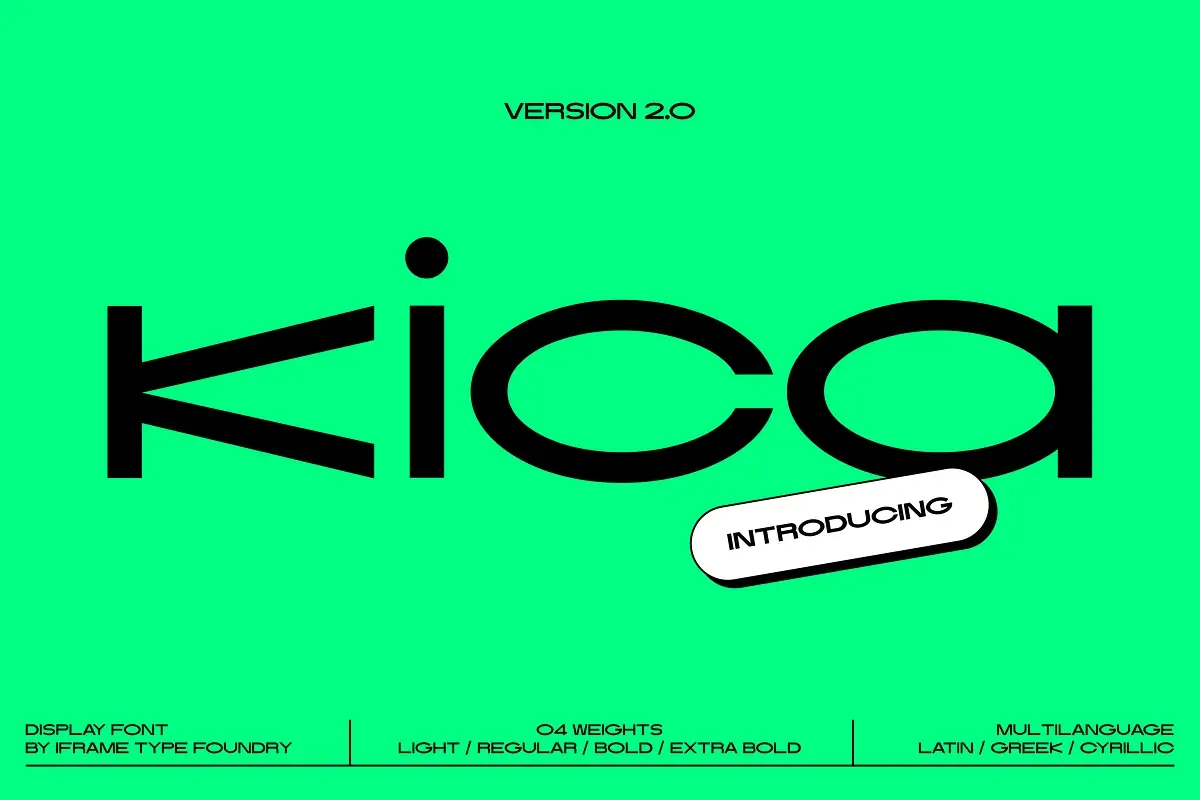
Kica Extended Font Family Free Download is a sleek and contemporary typeface collection known for its wide letterforms and modern geometric style. Perfect for impactful headlines, digital interfaces, branding, editorial layouts, and posters, this font family brings bold structure and a strong visual presence to your designs. With multiple weights and clean lines, Kica Extended ensures flexibility and style across various creative projects.
Designers choose Kica Extended Font Family Free Download for its futuristic appeal and excellent readability. The extended proportions make it stand out in both print and screen applications, helping your message land with clarity and edge. Whether you're working on tech branding or bold advertising, this typeface adds a confident, modern look.